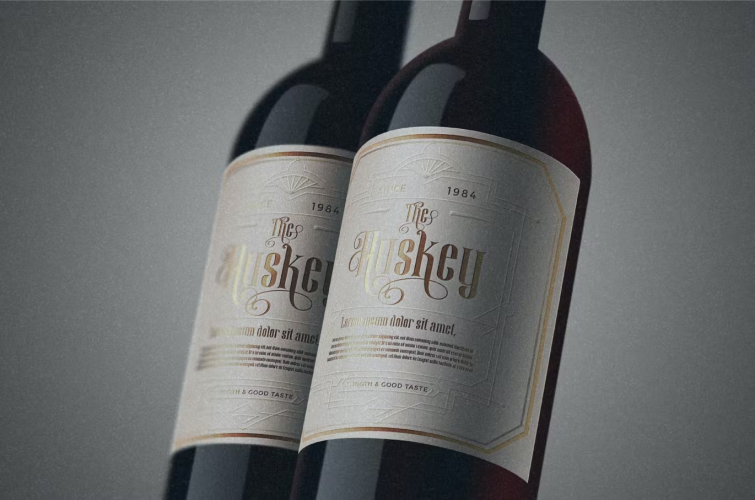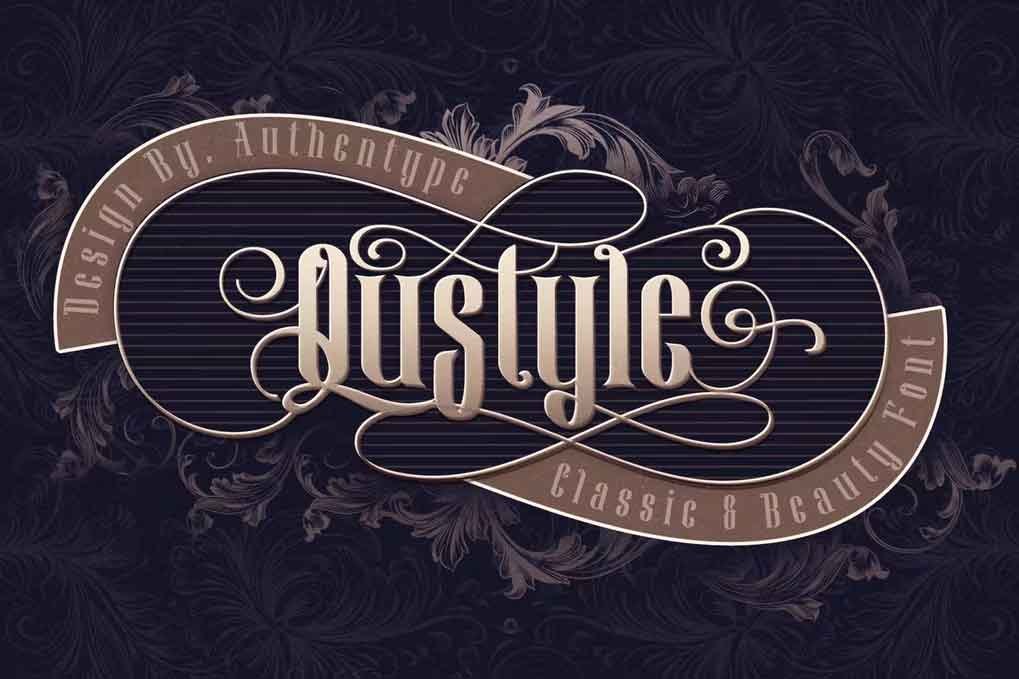
Qustyle Classic Font
Qustyle Classic Font created by Authen Type. This font features a classic and elegant style. Qustyle Classic Font designs are very beautiful to use in branding designs for brochures, logos, and invitations with a neat and varied font concept.
Qustyle Classic Font is a Serif Fonts font that brings a professional and versatile look to your projects. Qustyle Classic Font created by Authen Type.